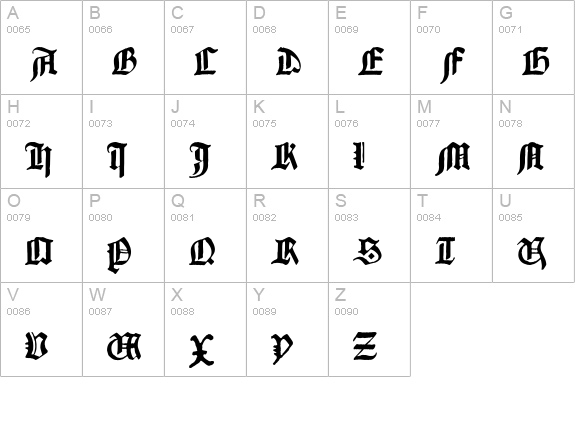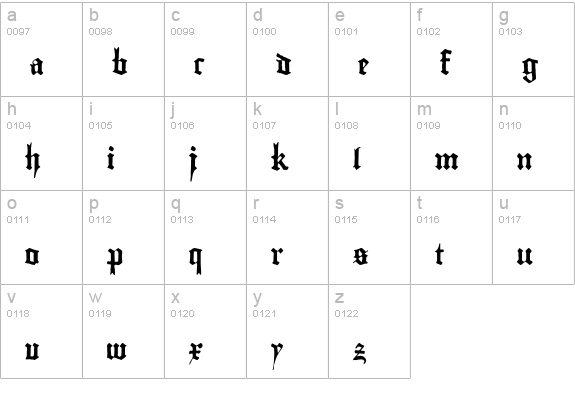
GutenbergTextura Font Details
GutenbergTextura is a timeless and elegant font that exudes sophistication and charm. Its classic serif style evokes a sense of tradition and refinement, making it perfect for a wide range of design projects. The intricate details of each letter give the font a unique and captivating appeal, making it stand out from the crowd. What sets GutenbergTextura apart is that it is not only visually stunning, but also versatile and easy to read. Whether you are creating a vintage-inspired poster, a formal invitation, or a stylish logo, this font will add a touch of class to your design. The best part? GutenbergTextura is completely free to download at FontsMarket.com. So go ahead and elevate your designs with this exquisite font that combines history with modern elegance.